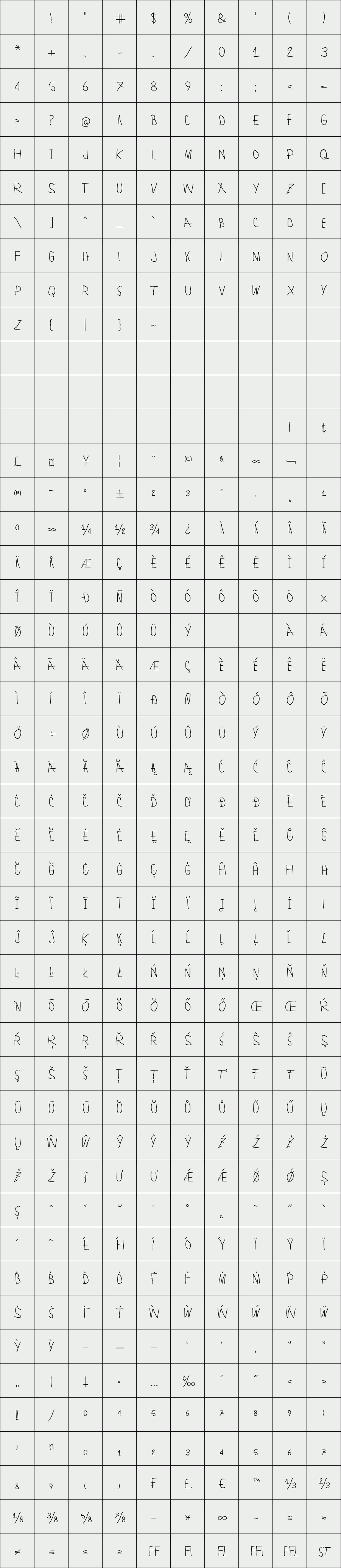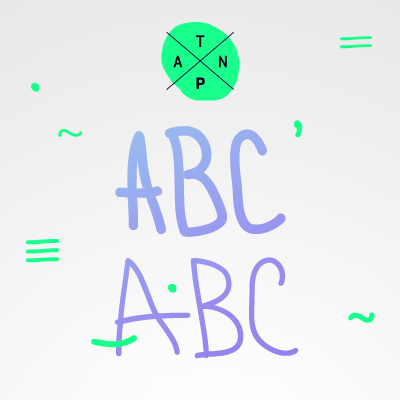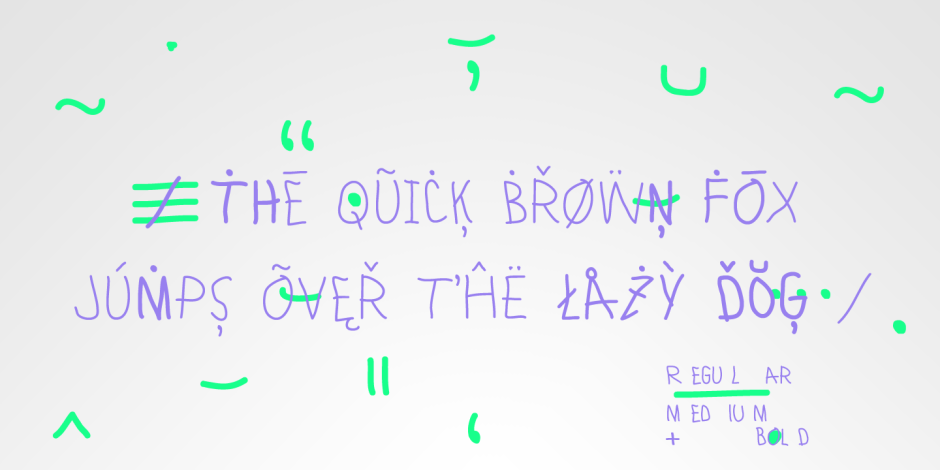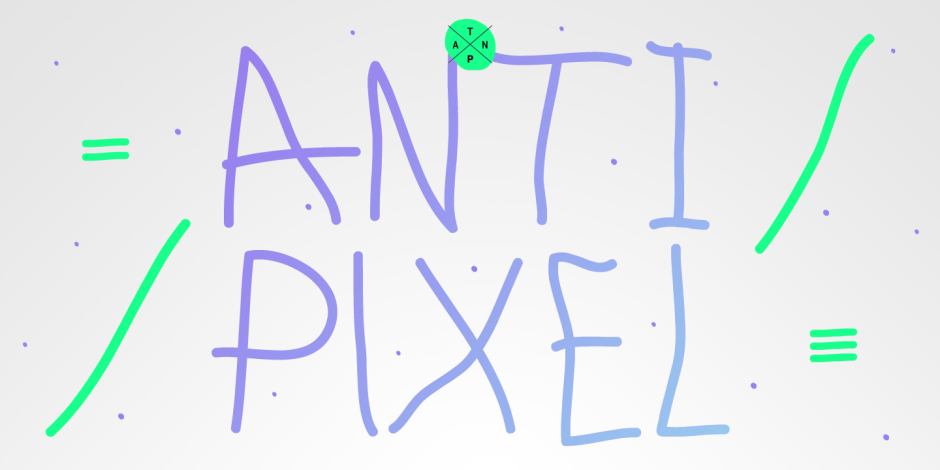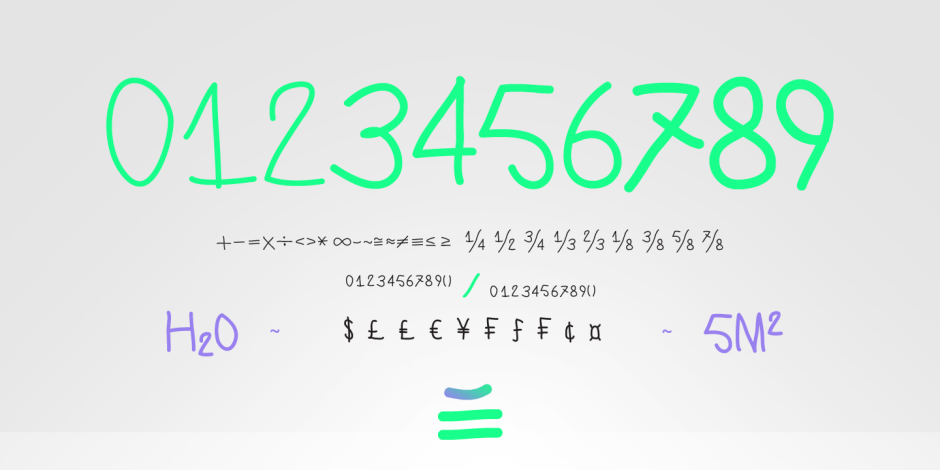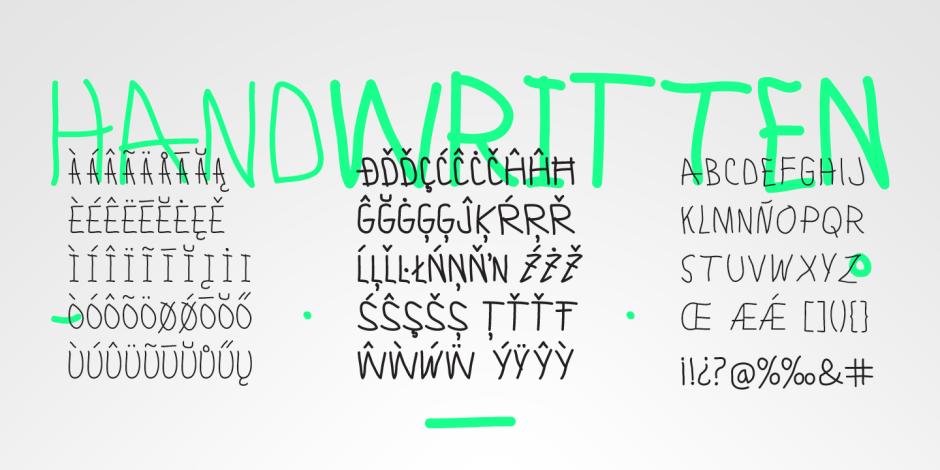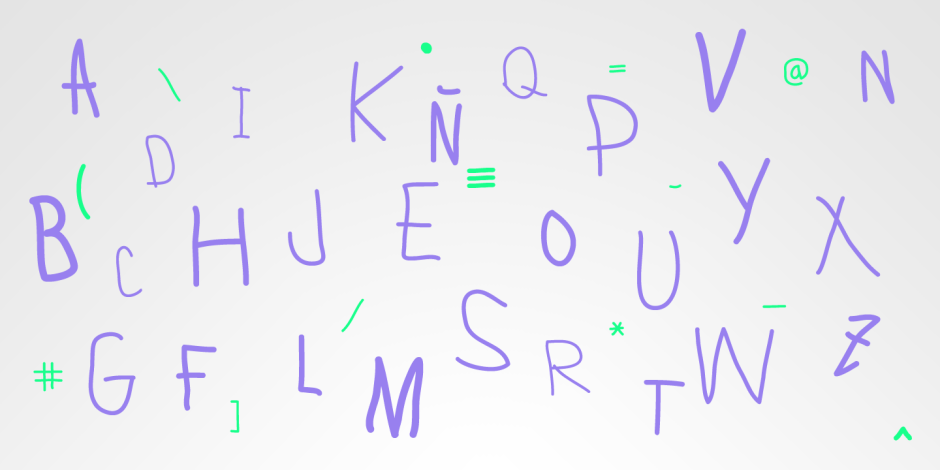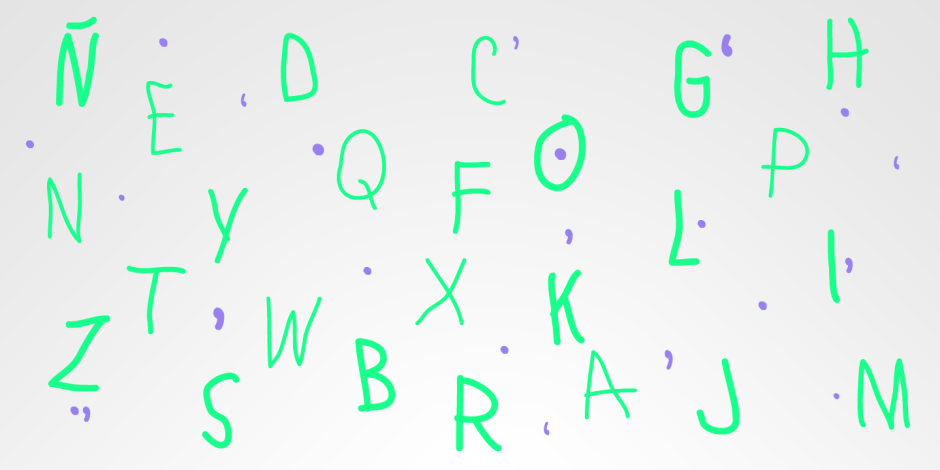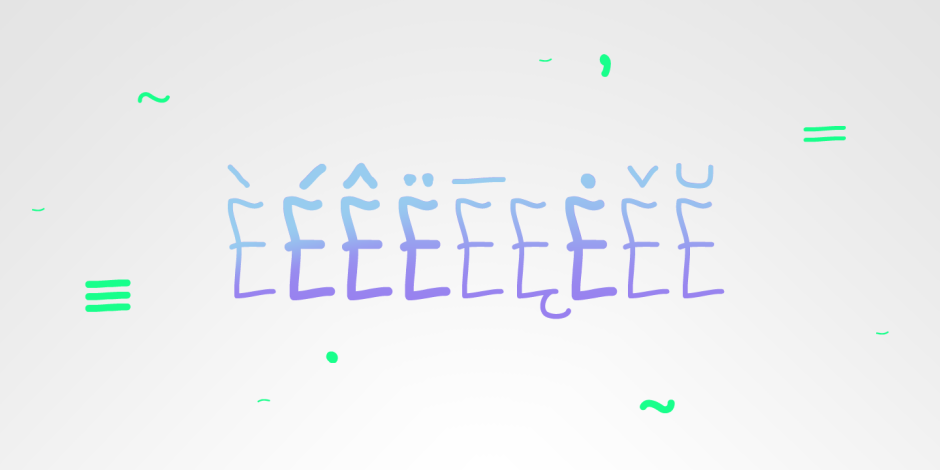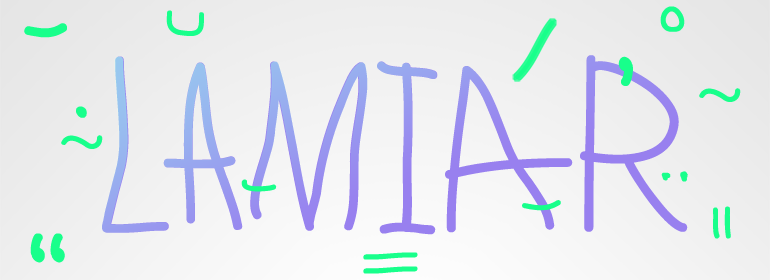
Lamiar
/ Lamiar Regular
Lamiar is a decorative, fun, san serif handwritten font. This rounded monoline font will add an fancy, weird and unique look to your work.
It’s recommended for display usage for its glyph quality.